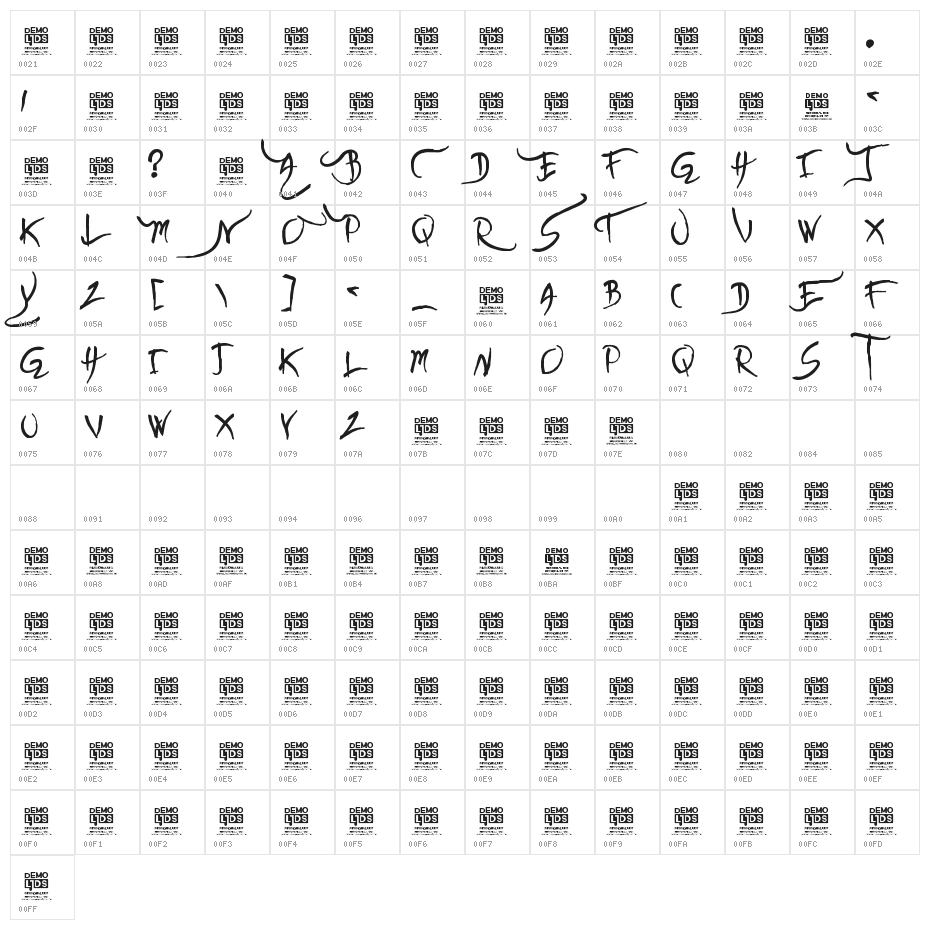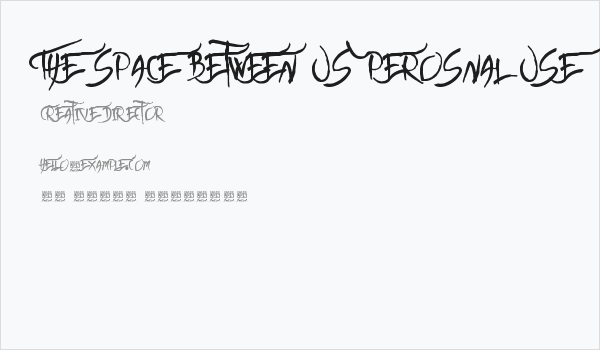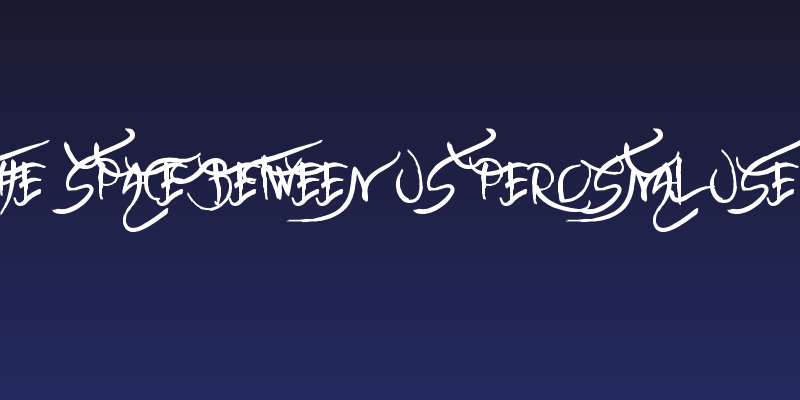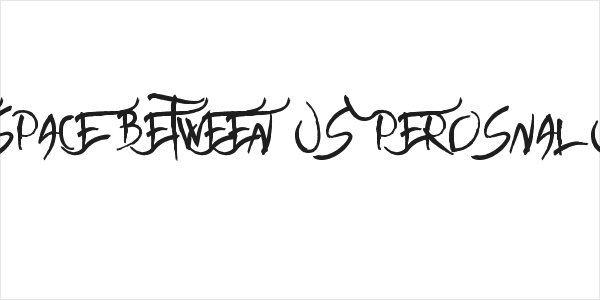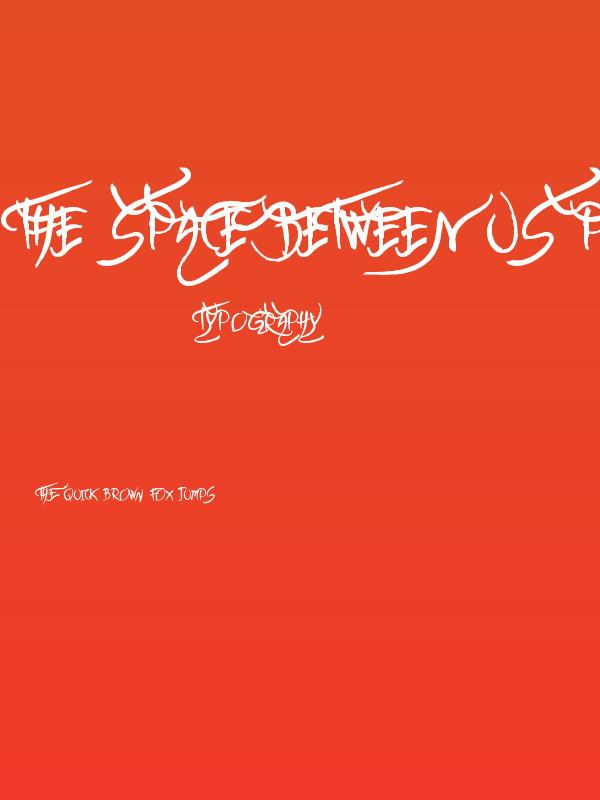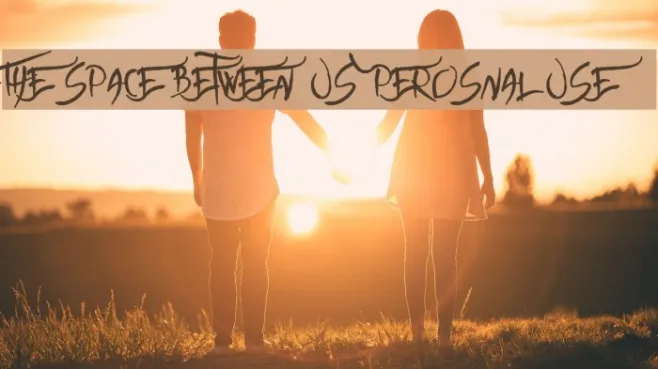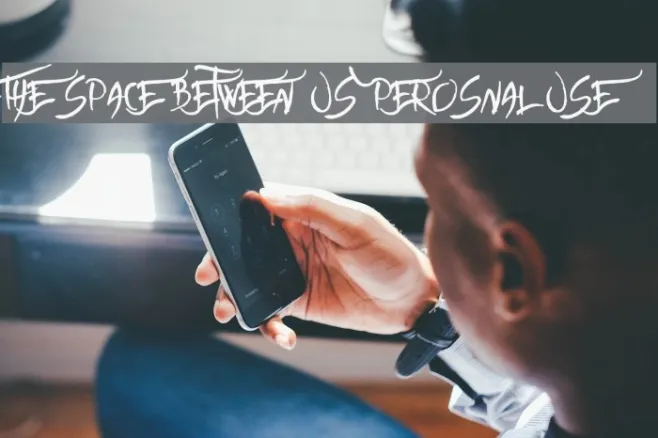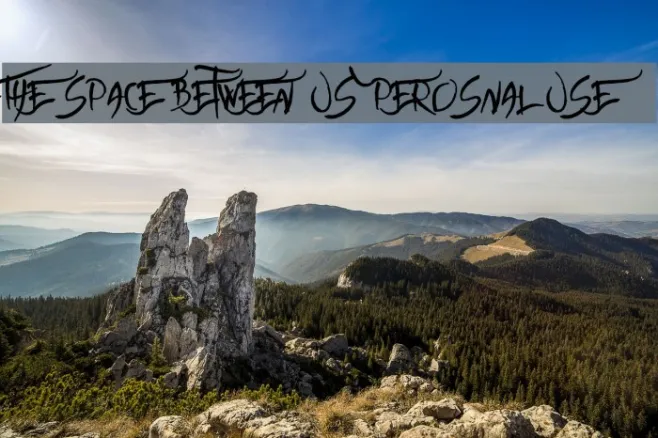
The space between Us Perosnal Use Font
The space between Us Perosnal Use Description
This font features a highly decorative and artistic style, characterized by its bold, sweeping strokes and intricate details. The letters exhibit a hand-drawn quality, with varying line thicknesses that create a dynamic and expressive appearance. The uppercase and lowercase letters maintain a consistent aesthetic, with elongated forms and unique flourishes that add to its visual appeal. The numerals and special characters are equally stylized, ensuring a cohesive look across all glyphs. This font is ideal for projects that require a strong visual impact and a touch of creativity.
| Proposed Projects | Ideal for artistic projects, album covers, posters, and branding that require a bold, creative touch. |